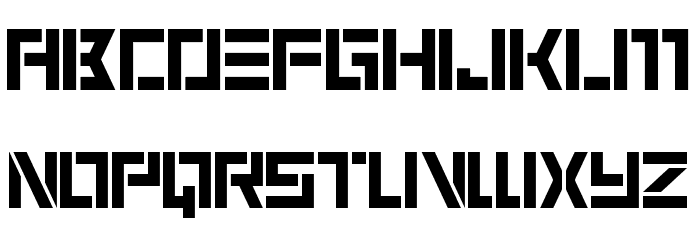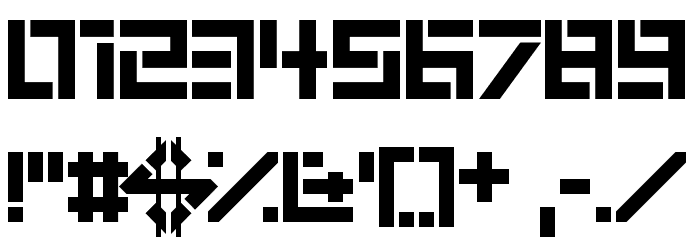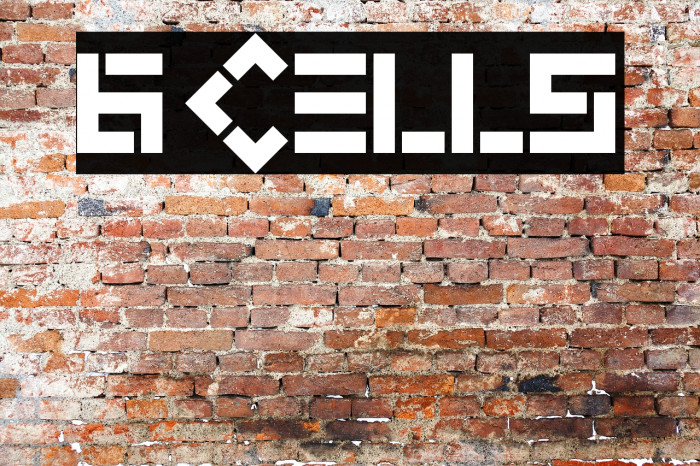
6 Cells Font
This font features a bold, geometric design with a futuristic and digital aesthetic. Each character is constructed using sharp angles and straight lines, creating a sense of precision and modernity. The uppercase letters are uniform in height and width, giving a cohesive and structured appearance. The numerals and special characters follow the same design principles, ensuring consistency across all elements. The overall style is reminiscent of digital displays or sci-fi themes, making it suitable for projects that require a modern and technological feel.
A bold, geometric font with a futuristic and digital aesthetic.
- Proposed Projects: Ideal for technology-themed posters, video game graphics, sci-fi book covers, and digital interfaces.